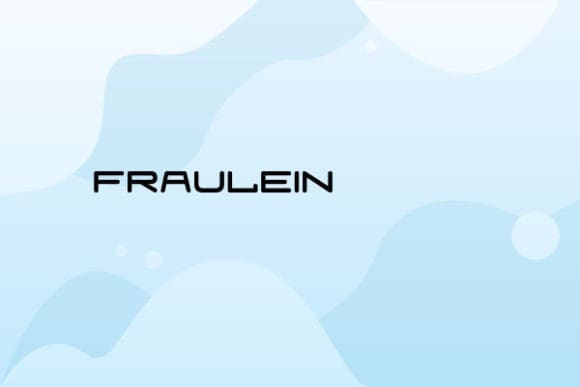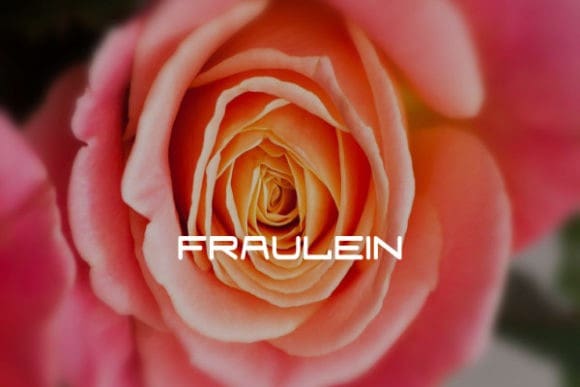
Fraulein Font is a beautiful sans serif font that has a familiar appearance. It will enhance your craft with its modern and slim lines.
| Designer Name: | Vic Fieger |
| Classification: | Display Fonts, Sans Serif Fonts |